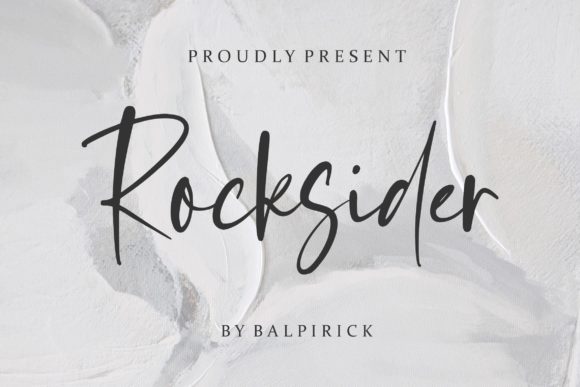
Introducing Rocksider Font: The Epitome of Elegance and Creativity
Unleash your artistic vision with Rocksider Font, a captivating script font that exudes style, sophistication, and creativity. Its meticulously crafted characters dance across the page, leaving a trail of elegance and charm that will elevate your designs to new heights.
With its versatile nature, Rocksider Font effortlessly adapts to a myriad of creative endeavors, from logos that exude professionalism to branding that radiates uniqueness. Envision your designs adorned with this remarkable font, attracting attention and sparking admiration wherever they go.
For those seeking a font that exudes timeless sophistication, Rocksider Font delivers. Its classic lines and refined curves evoke a sense of nostalgia, while its modern touches ensure that your designs remain relevant and captivating. Whether you're crafting wedding invitations that exude romance or stationery that oozes professionalism, Rocksider Font will elevate your creations with its innate charm.
Dive into the world of social media and let Rocksider Font amplify your presence. Its visually striking characters will transform your posts into captivating works of art, capturing the attention of your audience and leaving a lasting impression. Let your creativity shine through as you craft visually stunning graphics, quotes, and announcements that showcase the power of Rocksider Font.
And for those with a passion for the art of tattoo lettering, Rocksider Font presents an unparalleled opportunity to create designs that are both meaningful and visually stunning. Its bold lines and flowing curves lend themselves perfectly to the art of skin expression, allowing you to capture the essence of your ideas with precision and artistry.